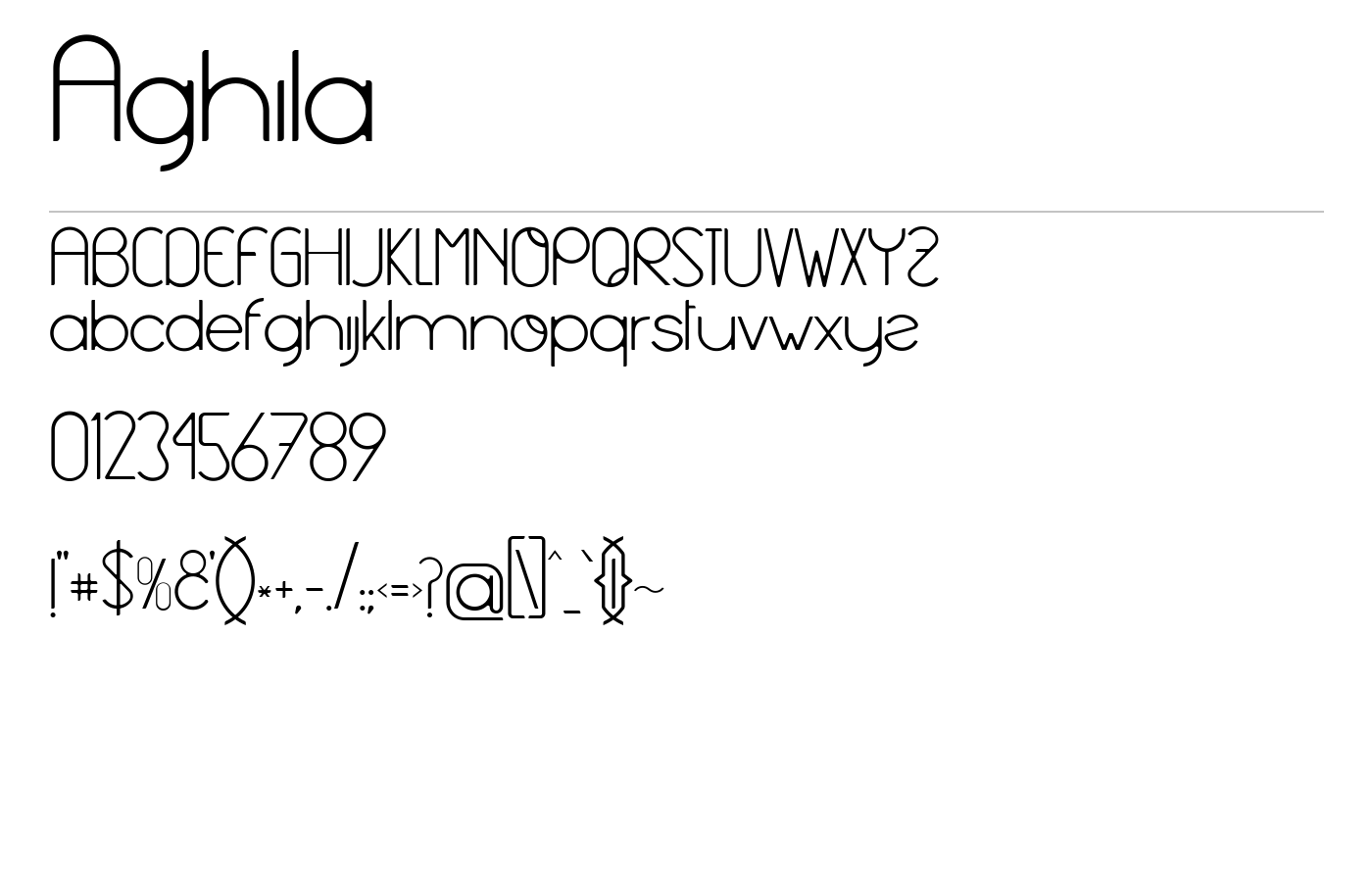
Aghila is a slender, modern sans serif font with a geometric and minimalist style, featuring clean, tall letterforms and subtle rounded edges. Its light weight and open spacing give it an elegant yet contemporary feel, making it ideal for stylish branding, editorial headlines, and digital interfaces that seek a chic, sophisticated look. This font works well where a sleek, refined aesthetic is desired, especially in fashion, tech, and creative industries.
Aghila Font
About Aghila Font
| Font family | Aghila Font |
| Designer | Alberto Villanueva |